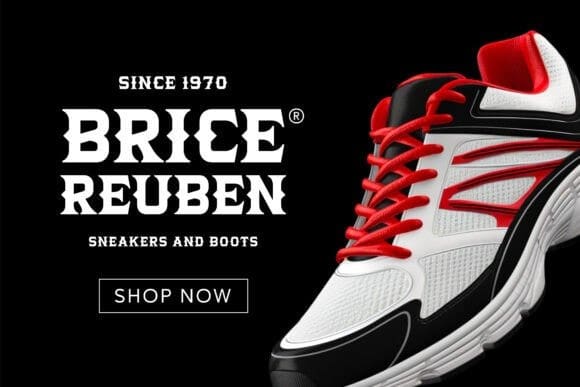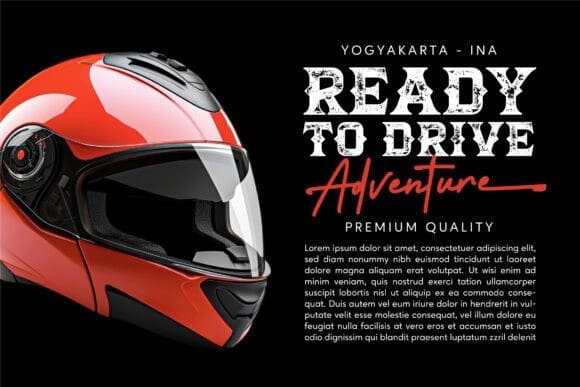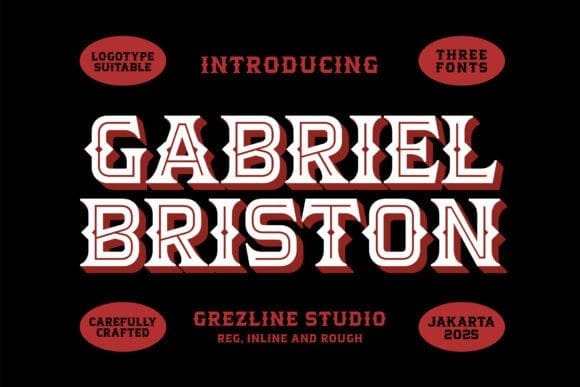
Gabriel Briston Font
Gabriel Briston Font is a sporty modern display font. GabrielBriston font is ideal for logos, posters, packaging, banner, and other creative projects that demand visually aesthetic and distinctive elements.